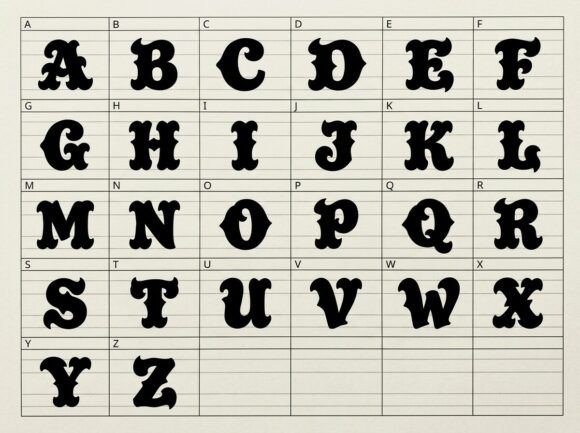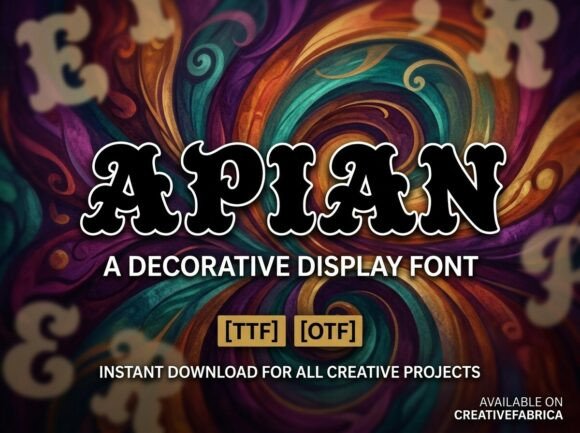
Introducing Apian Font: Elevate Your Creative Projects with a Unique Display Font
Are you tired of using the same old fonts for your creative projects? Do you want to make a statement and stand out from the crowd? Look no further than Apian Font, a decorative display font designed to be the centerpiece of any layout. With its distinct artistic elements and strong character, Apian Font is perfect for creators who want to break away from the ordinary and add a touch of sophistication to their work.
What Makes Apian Font Special?
Apian Font is a one-of-a-kind display typeface that is sure to turn heads. Its unique artistic elements and strong character make it perfect for a variety of creative projects, from bold headlines to creative branding and packaging. Whether you’re a designer, craftsperson, or simply someone who loves to create, Apian Font is the perfect tool to help you elevate your work and make a lasting impression.
Key Features of Apian Font
So, what can you expect from Apian Font? Here are just a few of its key features:
Technical Notes
It’s worth noting that Apian Font is an all-caps display typeface, which means it does not contain lowercase letters. By design, this font is meant to be used for logos, titles, and decorative initials, making it a powerful tool for adding a touch of elegance and sophistication to your creative projects.
Use Cases for Apian Font
So, how can you use Apian Font in your creative projects? Here are just a few ideas to get you started:
- Bold Headlines: Use Apian Font to create bold, eye-catching headlines that grab attention and draw the reader in. Whether you’re working on a magazine, newspaper, or website, Apian Font is the perfect choice for making a statement.
- Creative Branding: Add a touch of sophistication to your brand with Apian Font. Use it for logos, packaging, or marketing materials to create a cohesive and professional look that sets you apart from the competition.
- Packaging: Use Apian Font to add a touch of elegance to your product packaging. Whether you’re working on a luxury brand or simply want to create a unique and eye-catching design, Apian Font is the perfect choice.
Benefits of Using Apian Font
So, why choose Apian Font for your creative projects? Here are just a few benefits of using this unique display font:
- High-End Aesthetic: Apian Font delivers a high-end, professional aesthetic without compromising on personality. Whether you’re working on a luxury brand or simply want to create a unique and eye-catching design, Apian Font is the perfect choice.
- Unique and Creative: With its distinct artistic elements and strong character, Apian Font is the perfect tool for creators who want to break away from the ordinary and add a touch of sophistication to their work.
In conclusion, Apian Font is a unique and powerful display font that is perfect for creators who want to elevate their creative projects and make a lasting impression. With its distinct artistic elements, strong character, and high-end aesthetic, Apian Font is the perfect choice for bold headlines, creative branding, packaging, and more. So why wait? Download Apian Font today and start taking your creative projects to the next level!